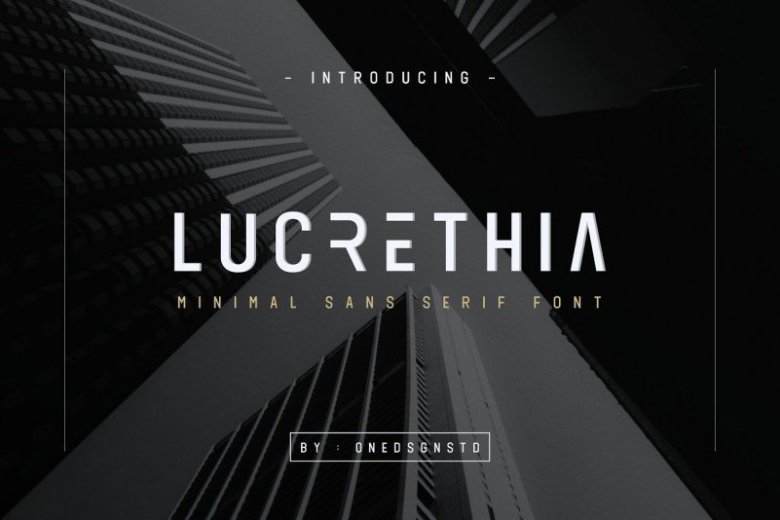
Lucrethia Sans Serif Font
A new minimal sans serif font. It’s would never let you down. Try it out and let us know what you think!
Introducing Lucrethia Sans Serif Font! LUCRETHIA Inspired by the minimalism, A balance styles through the controlled letterforms and modern touches. any family of this fonts will be added in upcoming updates.